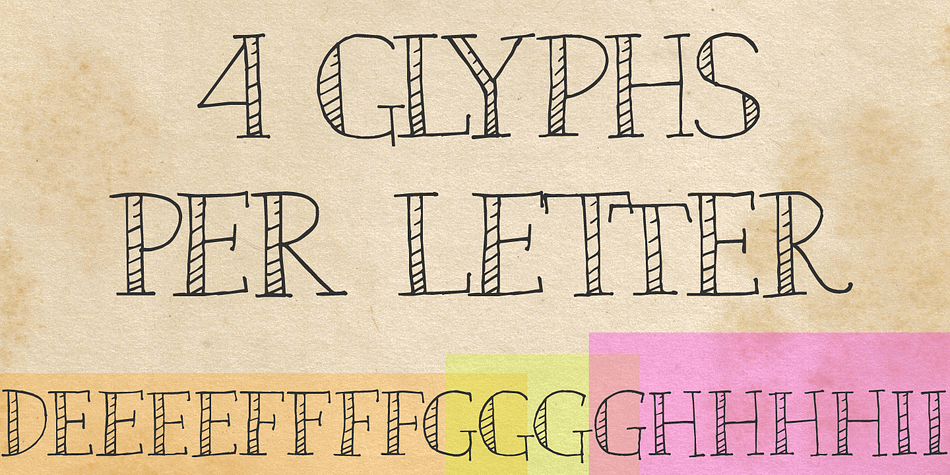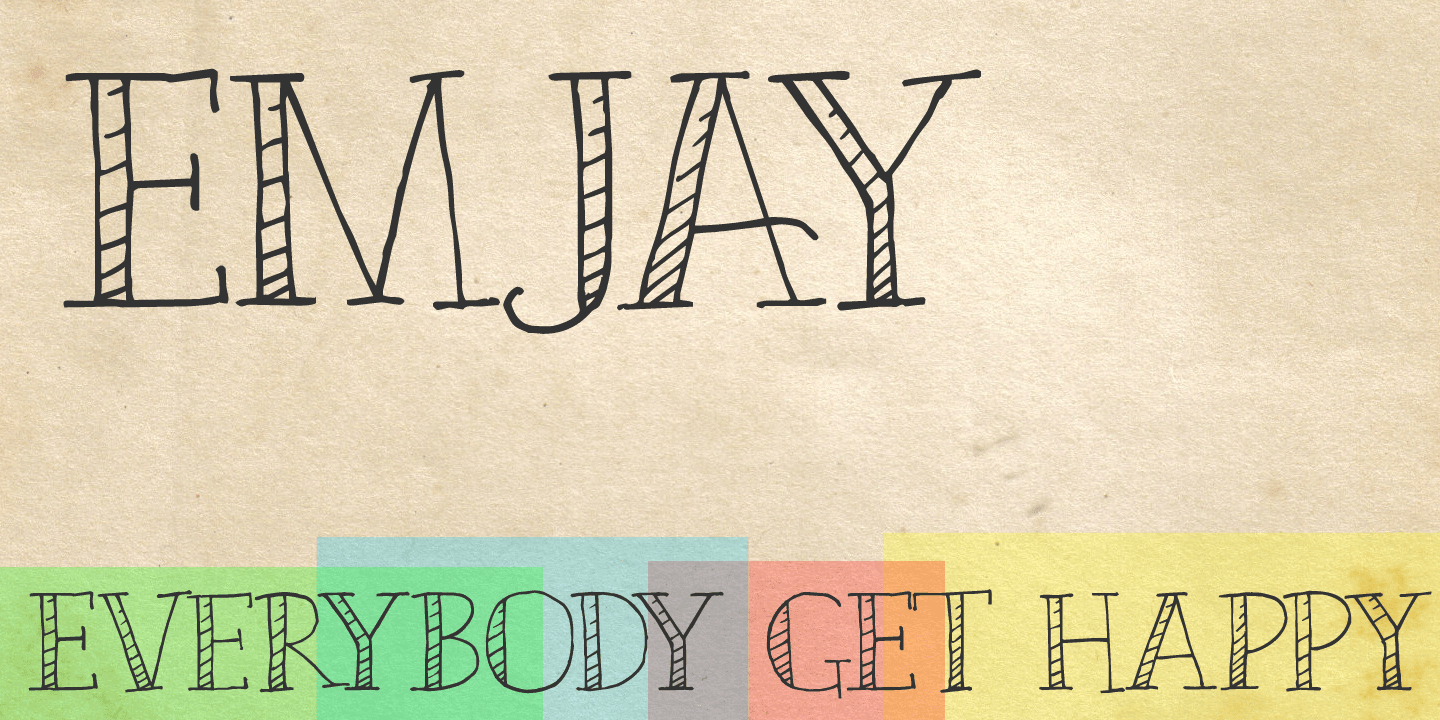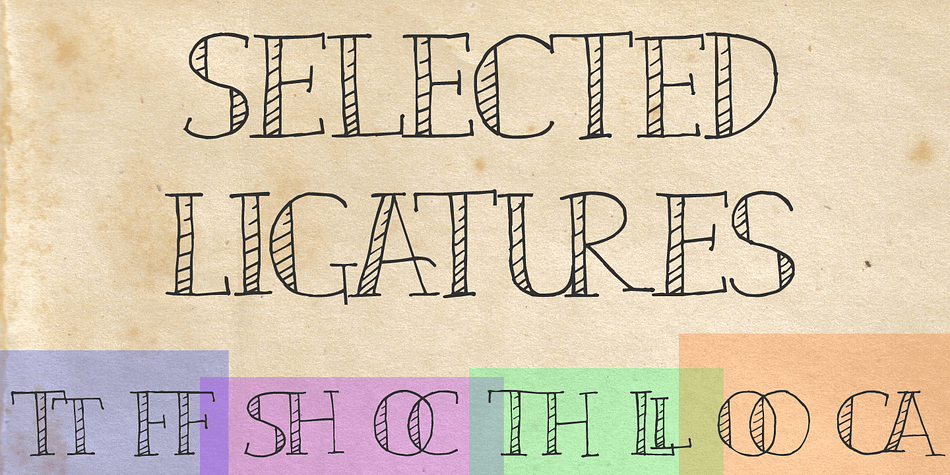
Emjay is a hand display and kids font published by A New Machine.
Emjay is a whimsical hand drawn all caps serif font. It has 4 glyphs per letter - upper and lowercase as well as 2 more sets of glyphs - that make for a more unnatural handmade feel. Any user can interchange letters using caps and lowercase. With contextual alternates on, opentype programs will place different glyphs automatically. Also includes a number of ligatures for even more unique type setting. Great for use in posters, headlines, invitations, etc.